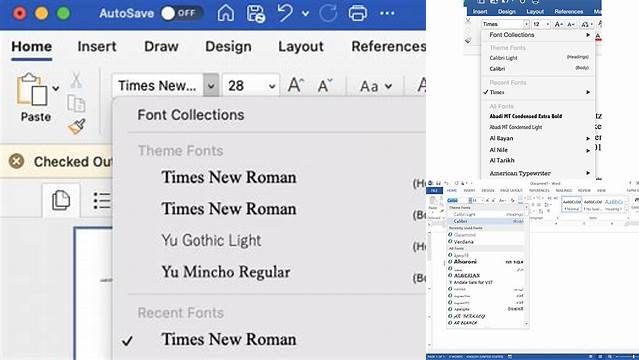
Customize Theme Fonts In Word: A Simple Guide
Hey guys! Ever felt like the default fonts in Word just don't quite capture your vibe? You're not alone! One of the cool things about Microsoft Word is that you can actually create your own customized set of theme fonts. This means you can make your documents look exactly how you want them, reflecting your personal style or brand identity. So, how do you do it? Let's dive in and make your Word documents shine!
Understanding Theme Fonts in Word
Before we get into the nitty-gritty of customizing, let's quickly chat about what theme fonts actually are. Theme fonts are like a dynamic duo – a pair of fonts (one for headings and one for body text) that work together to create a cohesive look throughout your document. Think of it as setting a mood for your writing! Word comes with a bunch of pre-set themes, but the real magic happens when you start tweaking things to your own taste.
What are Theme Fonts and Why Do They Matter?
So, what exactly are theme fonts, and why should you even bother customizing them? Think of theme fonts as the underlying style guide for your Word document. They're not just random fonts; they're a carefully chosen pair (usually one for headings and one for body text) designed to create a consistent and professional look. Using theme fonts ensures that your document has a unified feel, making it easier on the eyes and more impactful for your readers. Imagine if you used a playful, curly font for your headings and a super formal font for the body – it would look a bit chaotic, right? Theme fonts help you avoid that!
The beauty of theme fonts lies in their interconnectedness. When you change your theme fonts, all the styles in your document that are set to use the theme fonts will automatically update. This saves you a ton of time and effort, especially when working on long documents. No more manually changing fonts on every heading or paragraph! Plus, using theme fonts makes your documents look more polished and professional, which is always a good thing, whether you're working on a report for school, a business proposal, or even your novel.
Default Theme Fonts in Microsoft Word
Microsoft Word comes pre-loaded with a set of default theme fonts, and you've probably seen them without even realizing it! The classic combo is usually Calibri (for body text) and Calibri Light (for headings). They're clean, modern, and widely used, but they can also feel a bit… generic. That's where customization comes in! While these defaults are perfectly functional and readable, they might not always align with your specific needs or aesthetic. Maybe you want something a bit more elegant, or perhaps something bolder and more attention-grabbing. The default fonts are a great starting point, but don't be afraid to explore other options!
Word's default theme fonts are designed for readability and a professional appearance, which is why they are so widely used in business and academic settings. However, these fonts might not be suitable for every project. For instance, if you're creating a marketing brochure, you might want fonts that are more visually appealing and aligned with your brand's personality. Understanding what the default fonts are helps you appreciate the flexibility that customizing your own theme fonts offers. You can move beyond the standard and create documents that truly reflect your unique style and purpose. So, don't settle for the ordinary when you can make your documents extraordinary!
Advantages of Customizing Theme Fonts
Okay, so why go through the hassle of customizing your theme fonts? There are actually quite a few advantages! First off, it lets you personalize your documents. You can choose fonts that reflect your personality, brand, or the specific tone of your writing. Imagine crafting a document that truly feels like you – that's the power of customization. Beyond personalization, customizing theme fonts also enhances brand consistency. If you're creating documents for a business or organization, using consistent fonts across all materials helps build a strong and recognizable brand identity. Think of it as visual branding for your documents!
Another huge advantage is the time-saving aspect. Once you've set up your customized theme fonts, you can apply them to any new document with just a few clicks. No more manually changing fonts every time you start a new project! This is especially helpful for long documents or projects that require a consistent look and feel. Customizing theme fonts also adds a professional touch to your work. Using well-chosen font pairings can elevate the visual appeal of your documents, making them look more polished and sophisticated. Whether you're writing a report, a presentation, or a resume, customized theme fonts can help you make a strong impression. So, customizing theme fonts isn't just about aesthetics; it's about efficiency, branding, and professionalism too!
Step-by-Step Guide to Creating Custom Theme Fonts
Alright, let's get down to business! Here’s a step-by-step guide on how to create your own customized theme fonts in Word. Don't worry, it's not as complicated as it sounds. We'll break it down into manageable steps, and you'll be rocking custom fonts in no time!
Accessing the Theme Fonts Settings
First things first, you need to find the magic portal to the theme fonts settings. In Word, go to the "Design" tab on the ribbon. This is where you'll find all the tools for customizing the look and feel of your document. Now, look for the "Fonts" dropdown menu in the "Themes" group. Click on it, and you'll see a list of pre-set font themes. But we're not here for those – we want to create our own! At the bottom of the dropdown, you'll find the option "Customize Fonts...". Click on this, and you'll be greeted with the